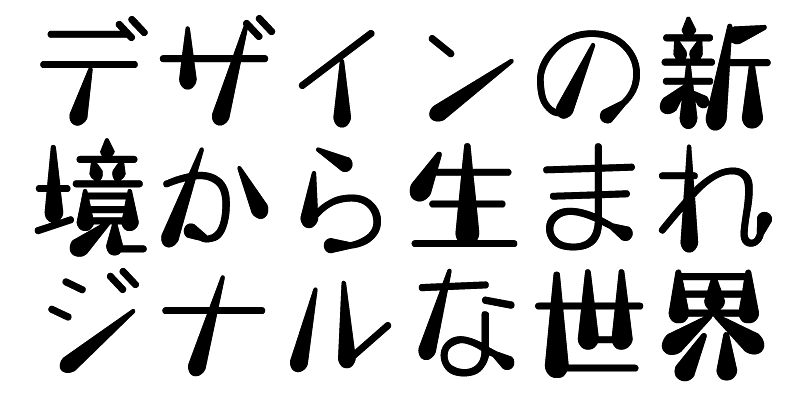
TA Shizuku Font Free Download is an elegant and refined typeface inspired by traditional Japanese calligraphy, offering a sophisticated balance of fluidity and structure. Its soft, graceful strokes and well-defined curves make it perfect for projects that require a touch of elegance, such as invitations, branding, logos, and high-end editorial designs.
The font's natural, handwritten style brings warmth and character to any design, while still maintaining legibility. It supports both Japanese and Latin scripts, making it a great option for bilingual projects and designs that blend Eastern and Western typographic elements.